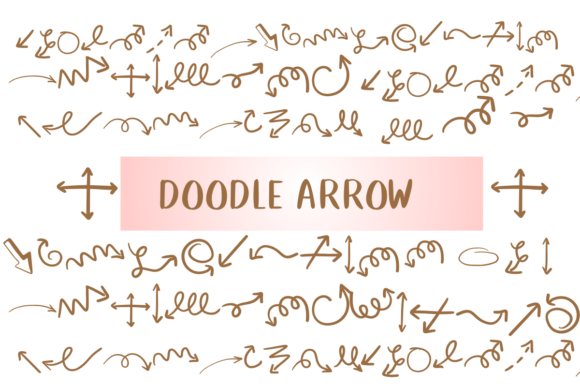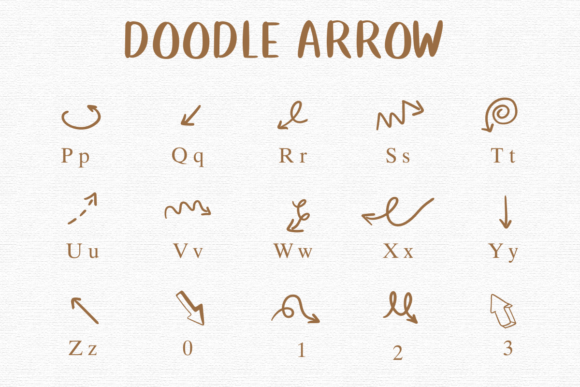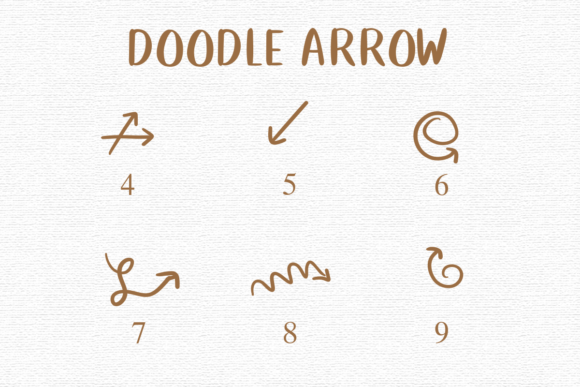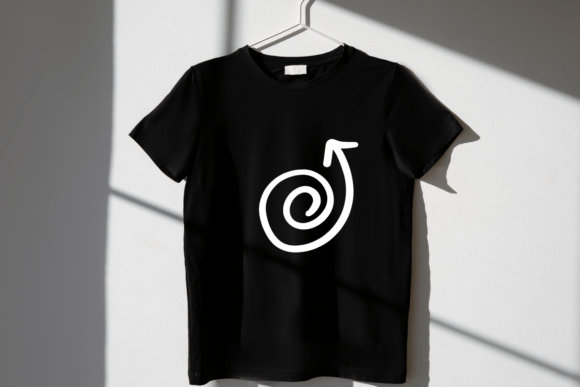
Doodle Arrow Font
DOODLE ARROW is a fun font that features cute, curly arrows. Each arrow looks hand-drawn, giving it a playful and unique style. Perfect for adding a whimsical touch to your designs and projects!